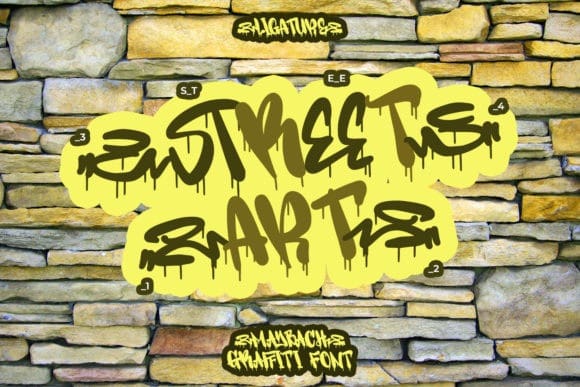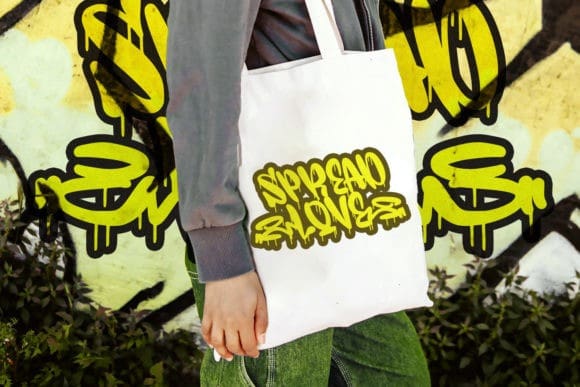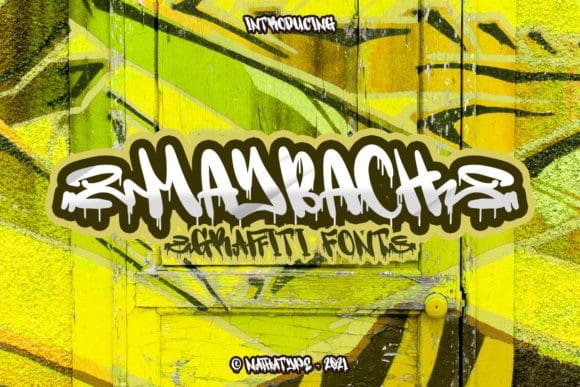
Maybach Display Font
Maybach Display Font is a dramatic, graffiti styled display font, that features a street art vibe. This font is suitable for designs like jerseys, sportswear, skateboard and more.